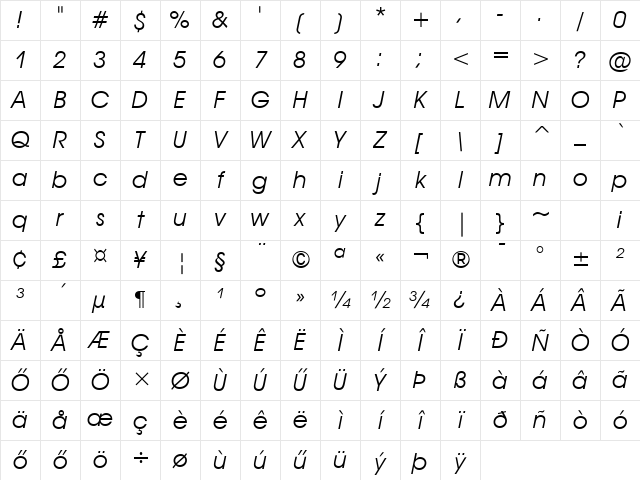
AvantGardeGothic HU Book Italic
Style: Book Italic
AvantGardeGothic HU Family
Complete AvantGardeGothic HU Book Italic glyph index. Displaying only characters natively supported by AvantGardeGothic HU Book Italic font.
Design Context for AvantGardeGothic HU
AvantGardeGothic HU takes a clean, functional approach - its unadorned letterforms prioritise legibility and work reliably across screen and print environments. The slanted form adds forward momentum and visual energy.